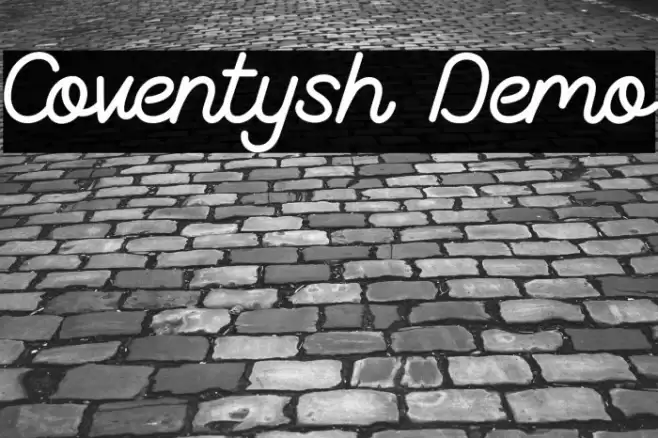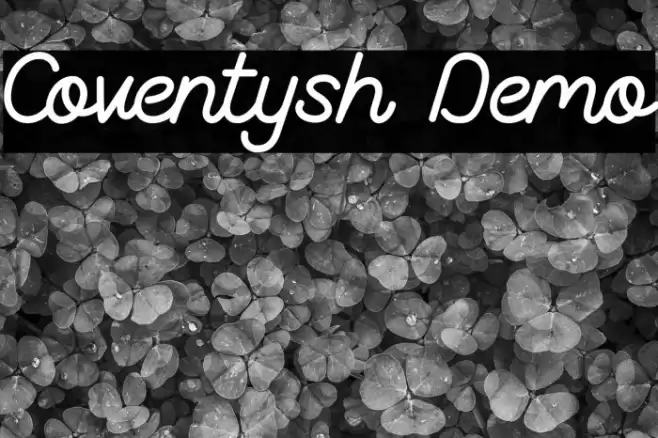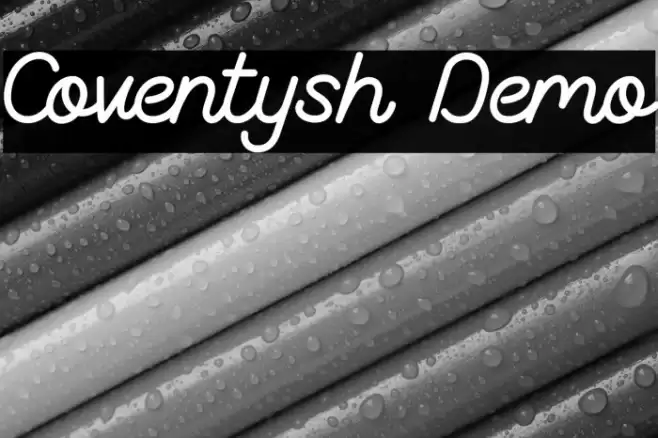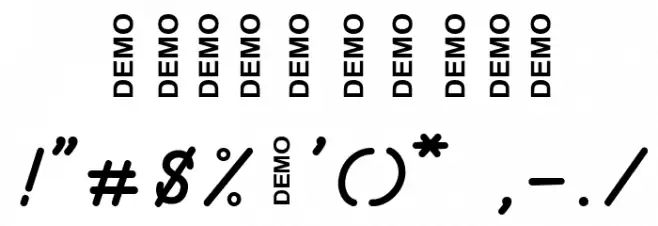
Coventysh Demo Font
Coventysh Demo Description
This font features a smooth, flowing script style that mimics the fluidity of handwriting. The characters are connected, giving it a cohesive and elegant appearance. The uppercase letters maintain a consistent height, while the lowercase letters exhibit a slight slant, enhancing the handwritten feel. The font's rounded edges and uniform stroke width contribute to its approachable and friendly look. It includes a full set of uppercase and lowercase letters, numerals, and a variety of punctuation marks, making it versatile for various applications. The overall design is modern yet retains a classic charm, suitable for both digital and print media.
A smooth, flowing script font with a handwritten style from Regular fonts.
- Proposed Projects: Ideal for wedding invitations, greeting cards, personal branding, and social media graphics.
- Use Case: Logos, Headlines, Invitations